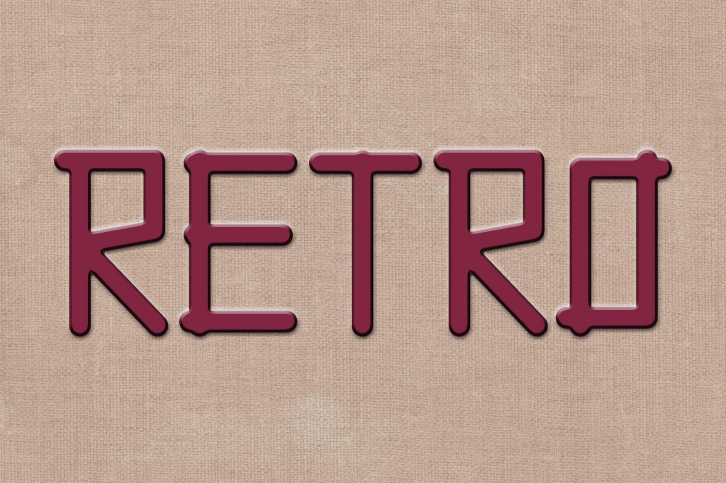
Retro is a cool, bold and informal display font. No matter the topic, this font will be an incredible asset to your fonts’ library, as it has the potential to elevate any creation.